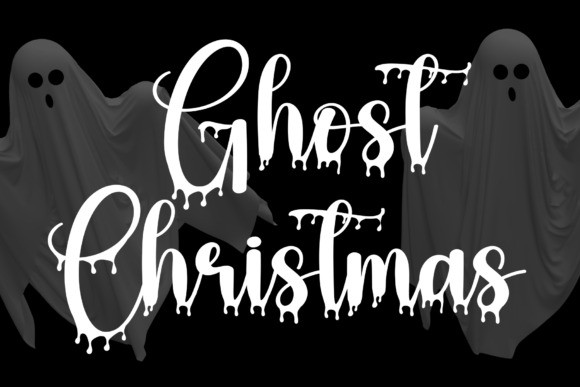
Ghost Christmas Font
Ghost Christmas Font is a chilling handwritten font that brings a touch of eerie elegance to your projects. Each letter is intricately crafted, with a haunting twist—dripping blood, capturing the essence of a ghostly holiday spirit. Perfect for adding a spine-tingling vibe to your festive designs.